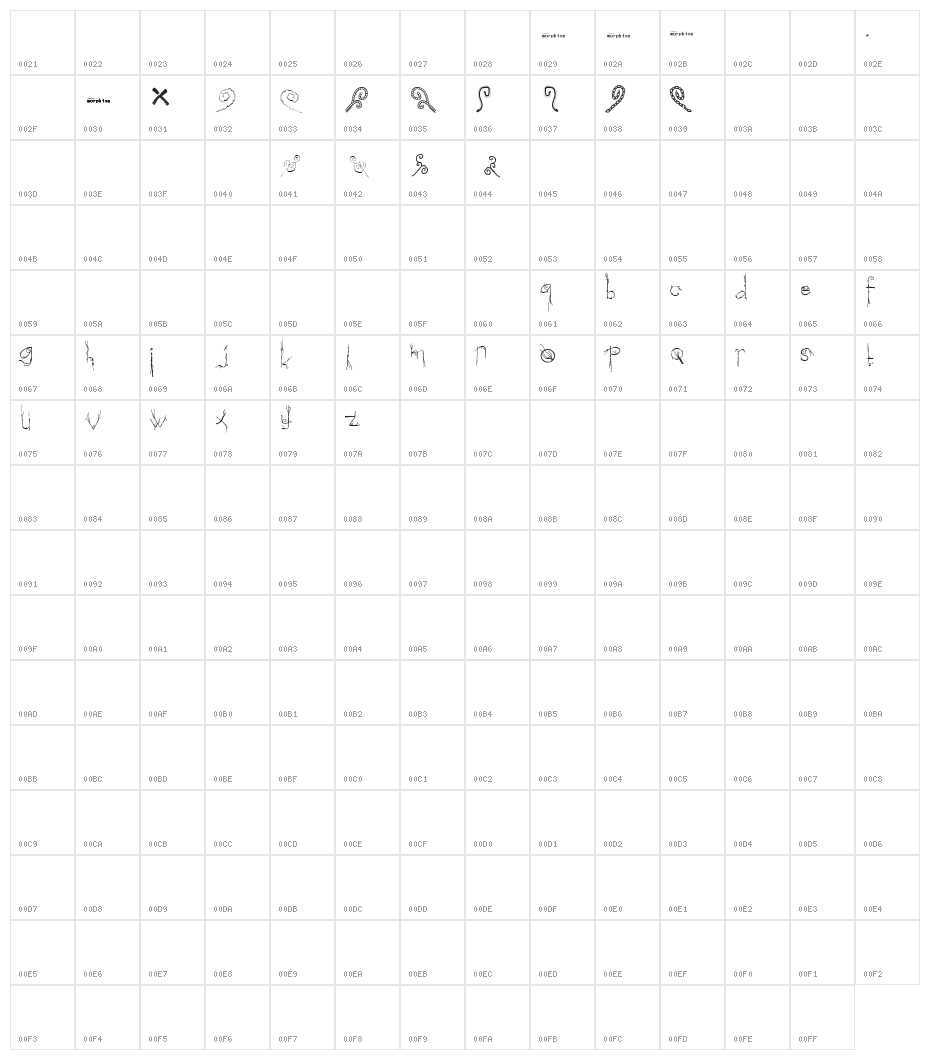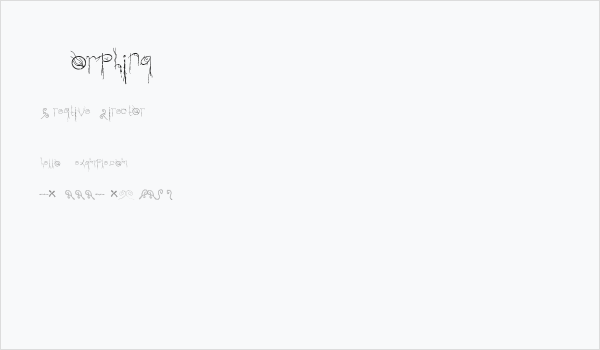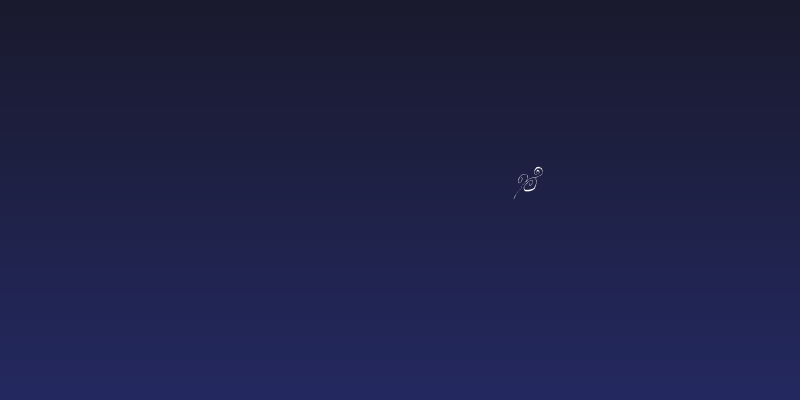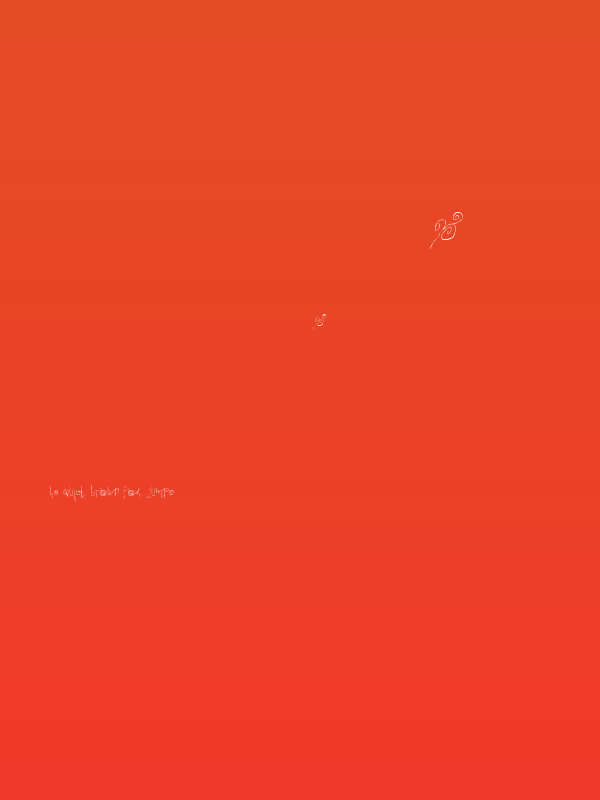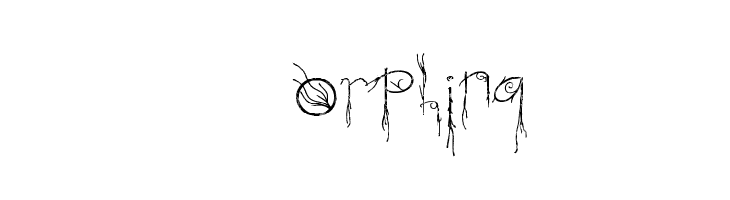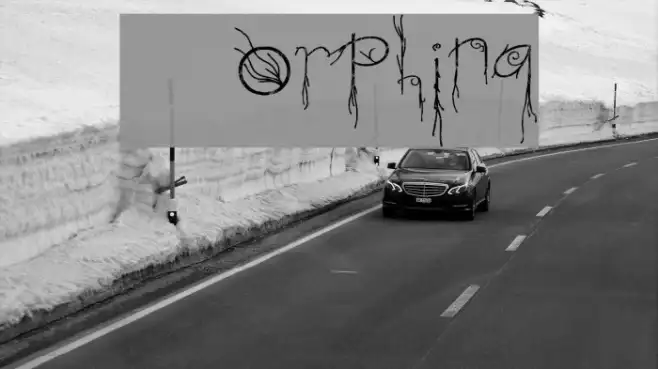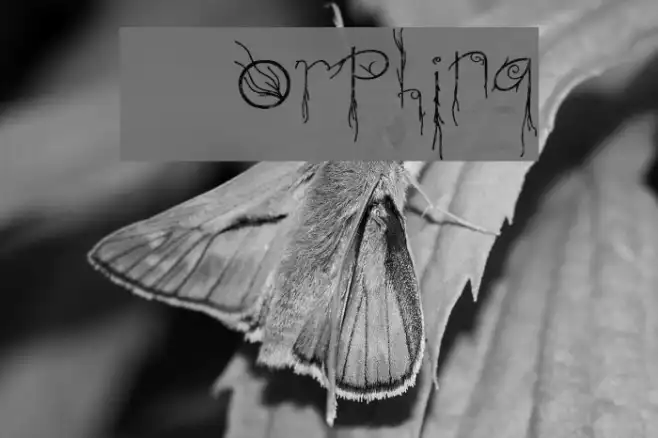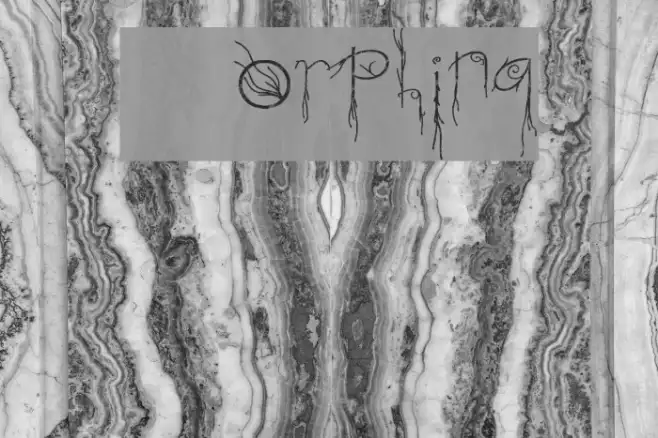
Morphina Font
Morphina Description
This font features a highly decorative and organic style, reminiscent of twisting vines and tendrils. Each character is uniquely crafted with intricate details that mimic natural forms, giving it a whimsical and artistic appearance. The strokes vary in thickness, creating a dynamic and flowing look. The lowercase letters are particularly expressive, with elongated stems and loops that enhance the font's naturalistic theme. The overall design is both playful and sophisticated, making it suitable for creative and artistic projects. The font's unique characteristics make it stand out, offering a distinct visual appeal that captures attention.
| Proposed Projects | Ideal for artistic projects, nature-themed designs, invitations, and branding that requires a whimsical touch. |